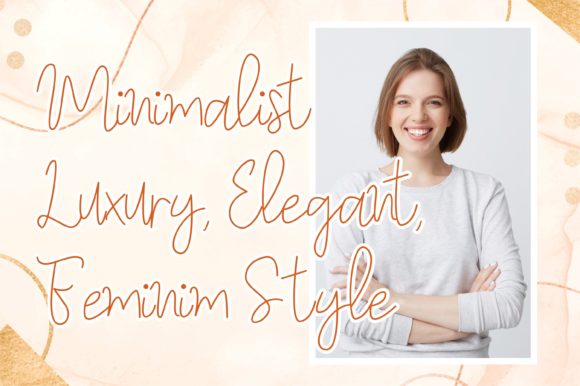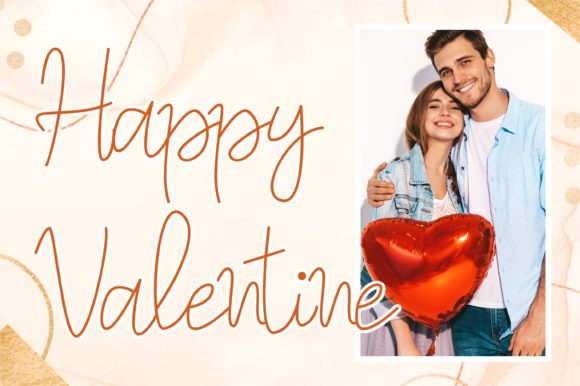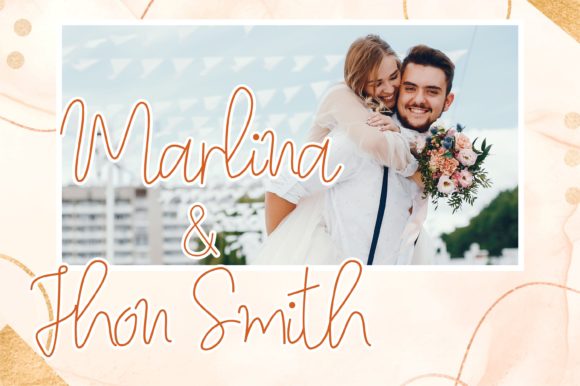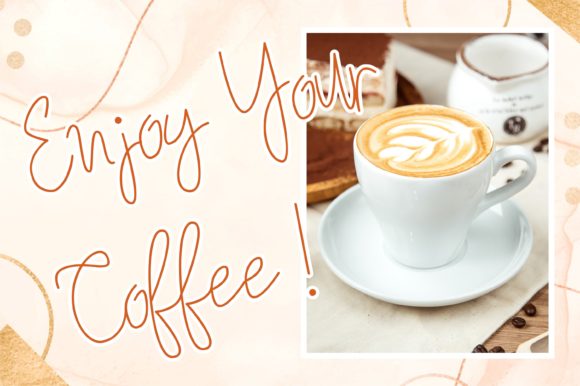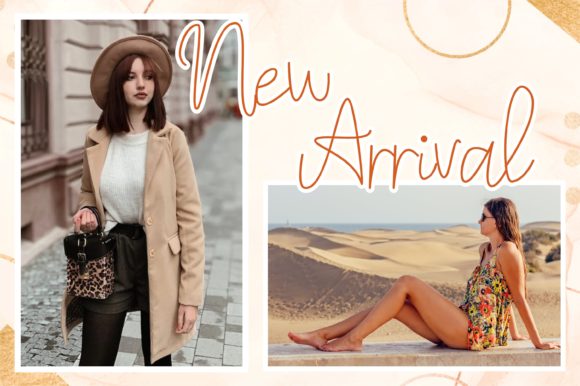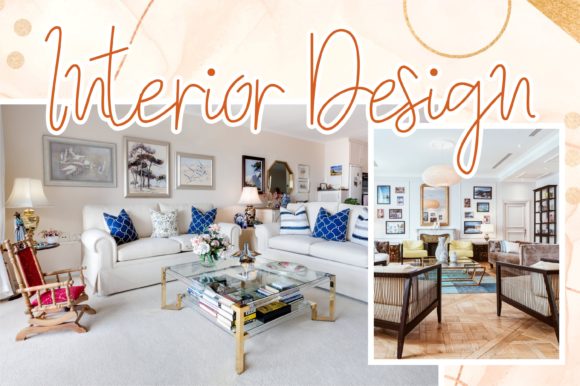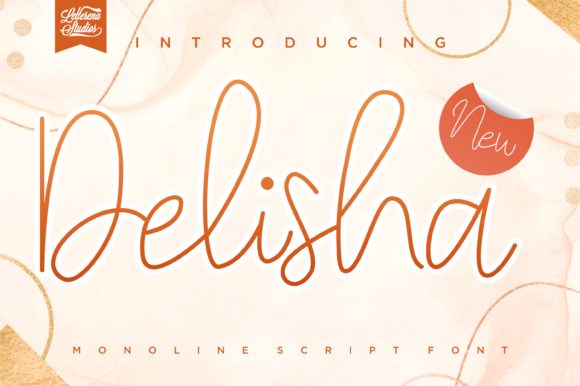
Introducing Delisha Font: The Sweet and Natural Handwritten Font for Your Creative Projects
Are you a designer or crafter looking for a font that adds a touch of warmth and personality to your projects? Look no further than Delisha Font, a beautiful and versatile handwritten font that’s perfect for a wide range of creative applications. In this article, we’ll take a closer look at Delisha Font, its features, and how you can use it to elevate your designs.
What is Delisha Font?
Delisha Font is a sweet and natural handwritten font that’s designed to bring a sense of balance and harmony to your projects. As described, “Delisha is a sweet and natural handwritten font. Not too thin and not too thick, balanced and varied, Delisha was designed to enhance the beauty of your projects.” This font is perfect for designers and crafters who want to add a personal touch to their work without overpowering it.
Key Features of Delisha Font
So, what makes Delisha Font so special? Here are some of its key features:
- Balanced and varied: Delisha Font has a balanced and varied design that ensures it looks great in a wide range of contexts. Whether you’re using it for a title, a paragraph, or a quote, Delisha Font adapts seamlessly.
- Sweet and natural: Delisha Font has a sweet and natural feel that’s perfect for projects that require a personal touch. Its handwritten design makes it ideal for creative projects, such as invitations, cards, and posters.
- Not too thin and not too thick: Delisha Font has a medium weight that’s just right – not too thin and not too thick. This makes it easy to read and ensures it looks great on a variety of backgrounds and textures.
How to Use Delisha Font in Your Projects
Delisha Font is a versatile font that can be used in a wide range of creative projects. Here are some ideas to get you started:
- Invitations and cards: Delisha Font is perfect for creating beautiful invitations and cards for special occasions, such as weddings, birthdays, and holidays.
- Posters and flyers: Delisha Font can add a touch of personality to your posters and flyers, making them stand out from the crowd.
- Branding and packaging: Delisha Font can be used to create custom branding and packaging for your products, adding a personal touch that sets you apart from the competition.
- Blogging and social media: Delisha Font can be used to create beautiful blog posts and social media graphics that showcase your personality and style.
Tips for Getting the Most Out of Delisha Font
Here are some tips for getting the most out of Delisha Font:
- Experiment with different sizes: Delisha Font looks great in a variety of sizes, so don’t be afraid to experiment and find the perfect size for your project.
- Pair it with other fonts: Delisha Font can be paired with other fonts to create a unique and interesting look. Try pairing it with a bold font for a striking contrast.
- Use it for headings and titles: Delisha Font is perfect for headings and titles, where its sweet and natural design can really shine.
Delisha Font is a beautiful and versatile handwritten font that’s perfect for designers and crafters who want to add a personal touch to their projects. With its balanced and varied design, sweet and natural feel, and medium weight, Delisha Font is sure to enhance the beauty of your projects. Whether you’re creating invitations, posters, branding, or social media graphics, Delisha Font is a great choice. So why not give it a try and see how it can elevate your designs?